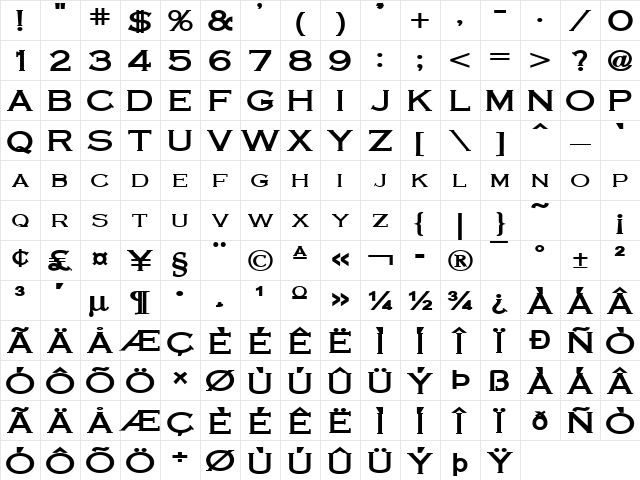
Complete Cobalt-Extended Bold glyph index. Displaying only characters natively supported by Cobalt-Extended Bold font.
Cobalt-Extended is a composed and adaptable typeface that performs quietly and consistently across a wide range of design contexts. Its bold stroke weight gives it real presence on the page.